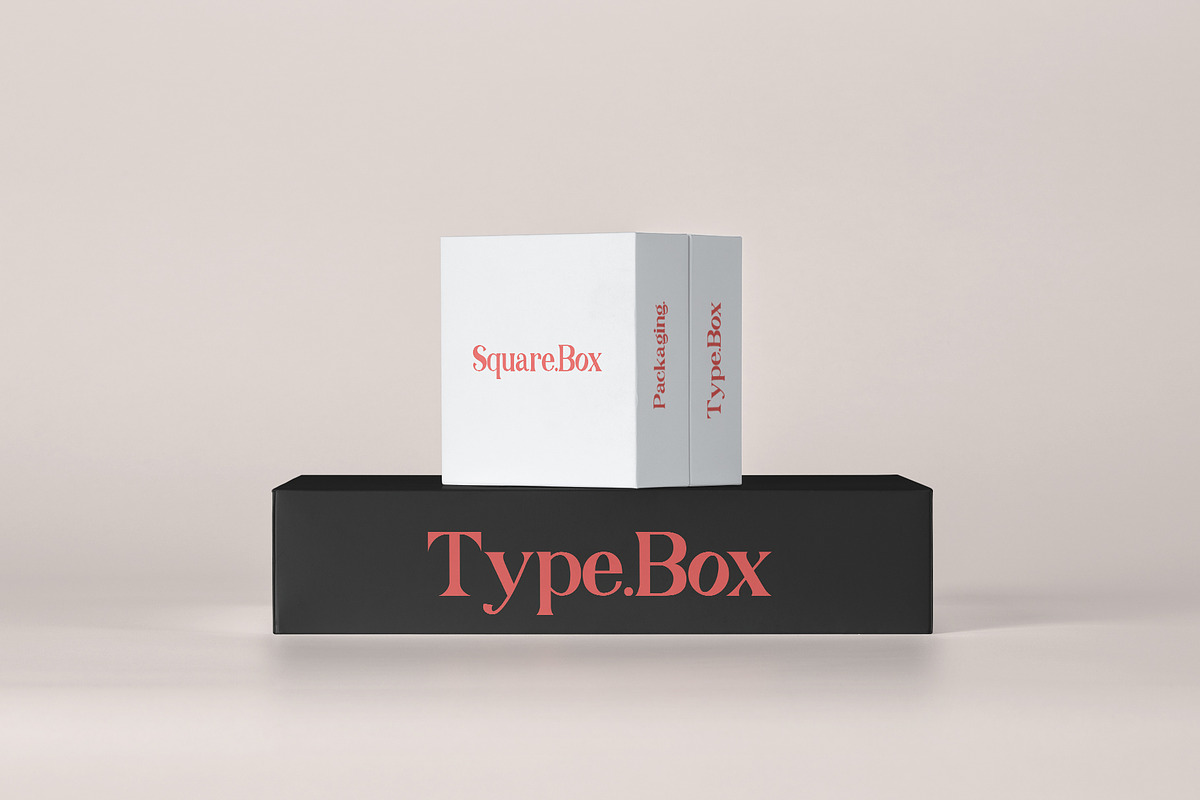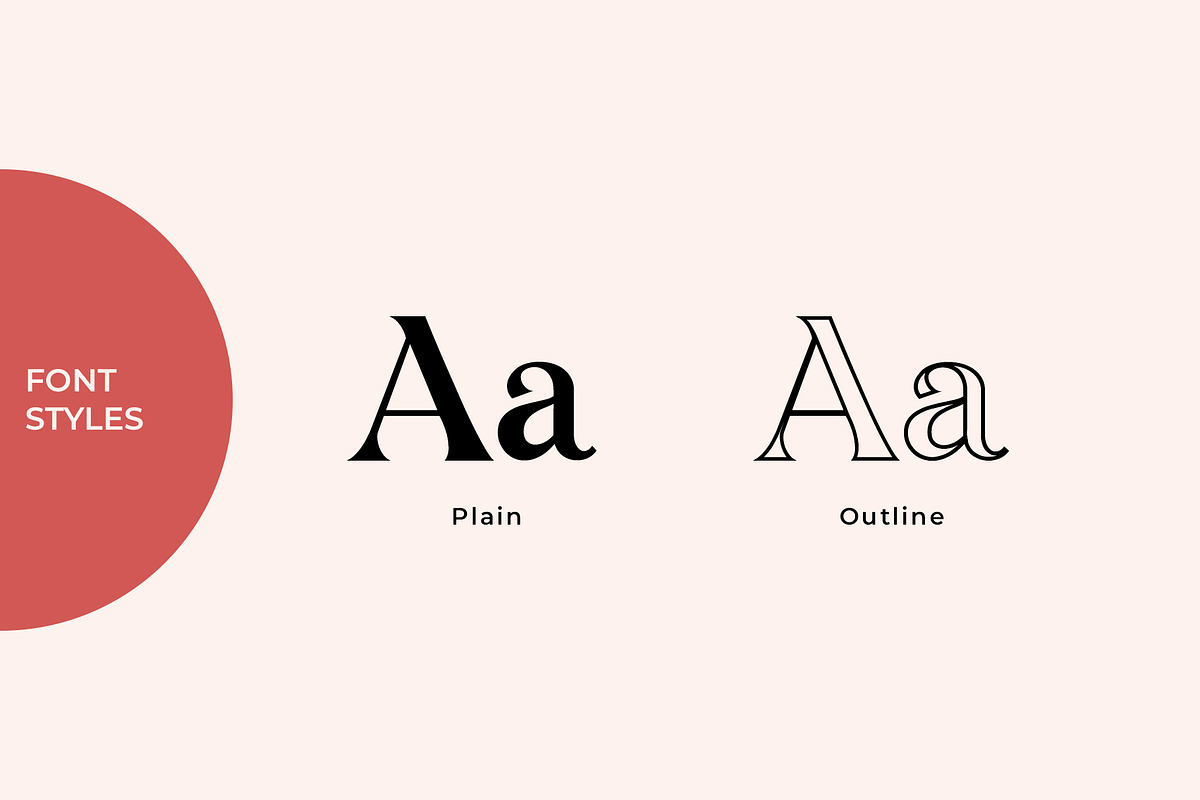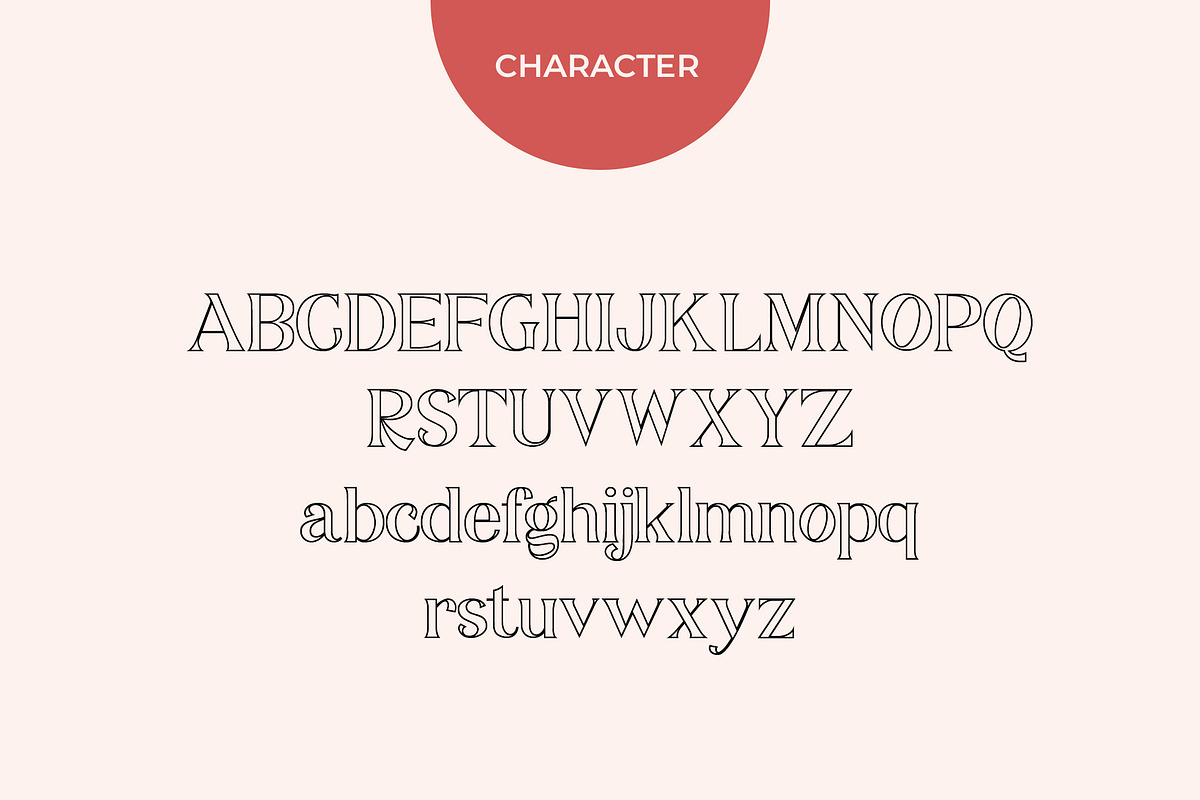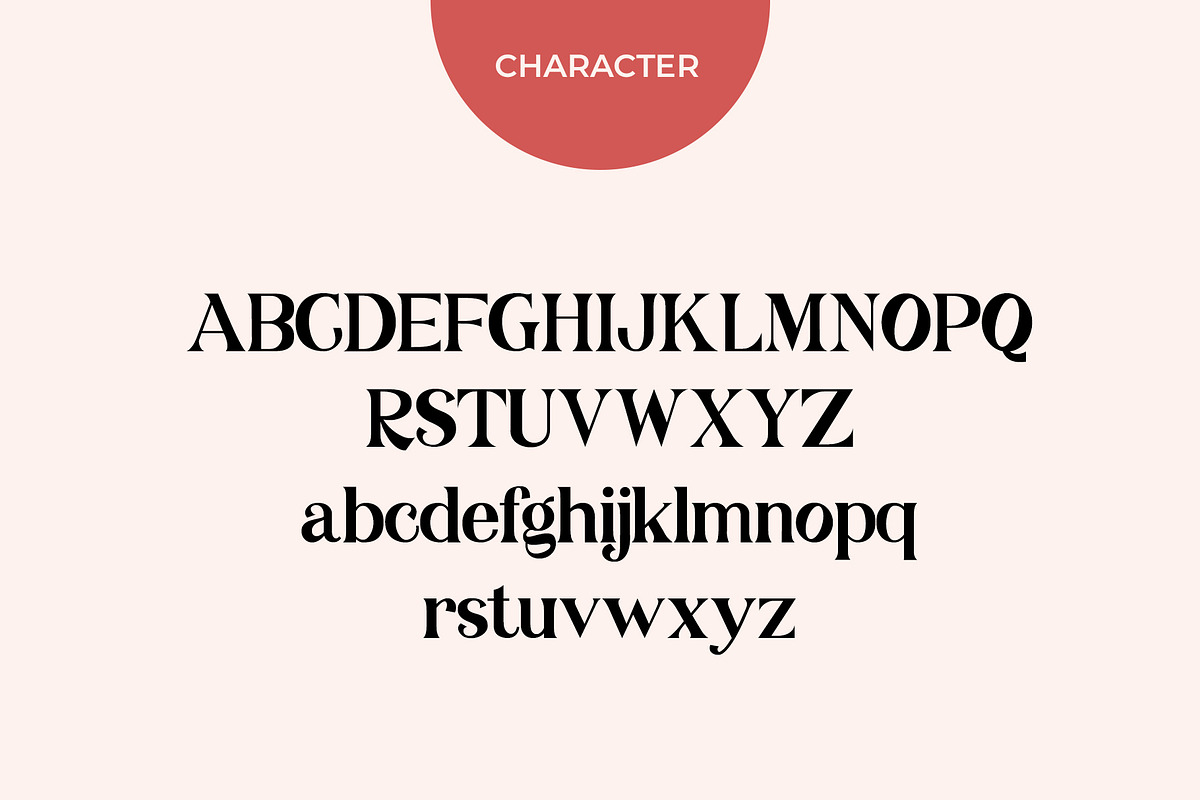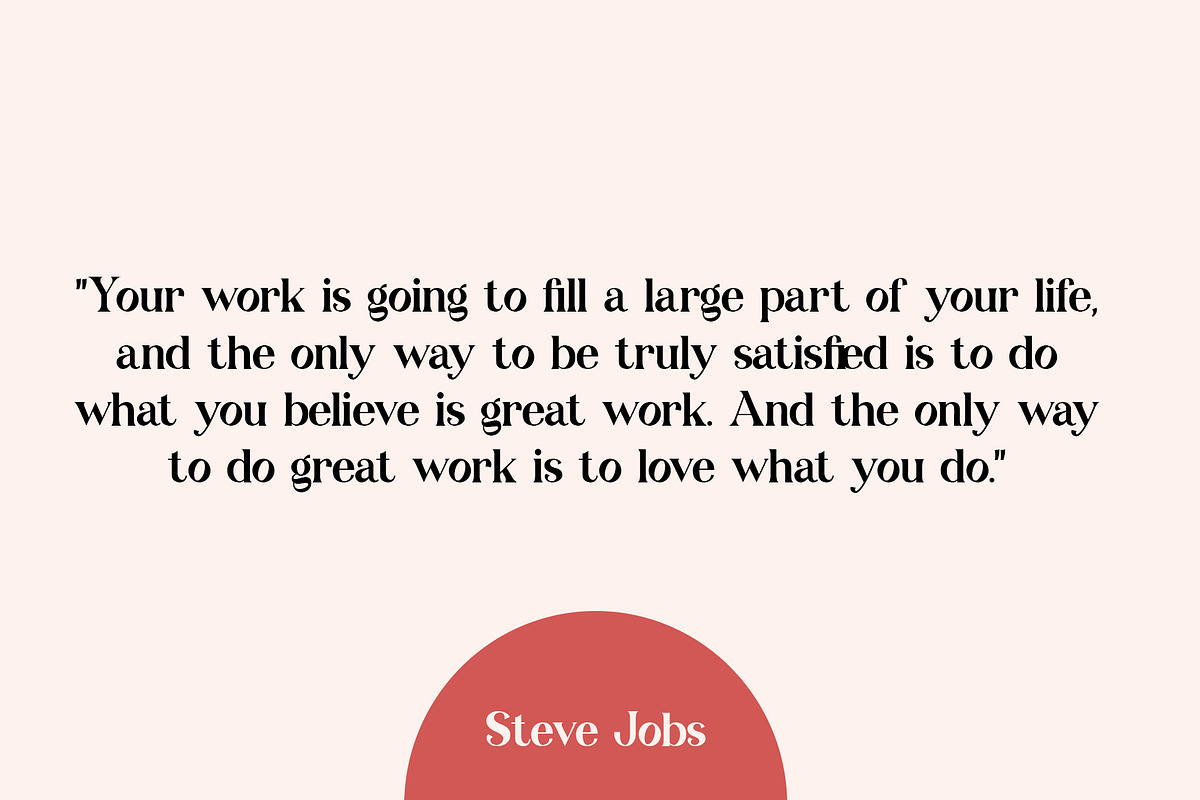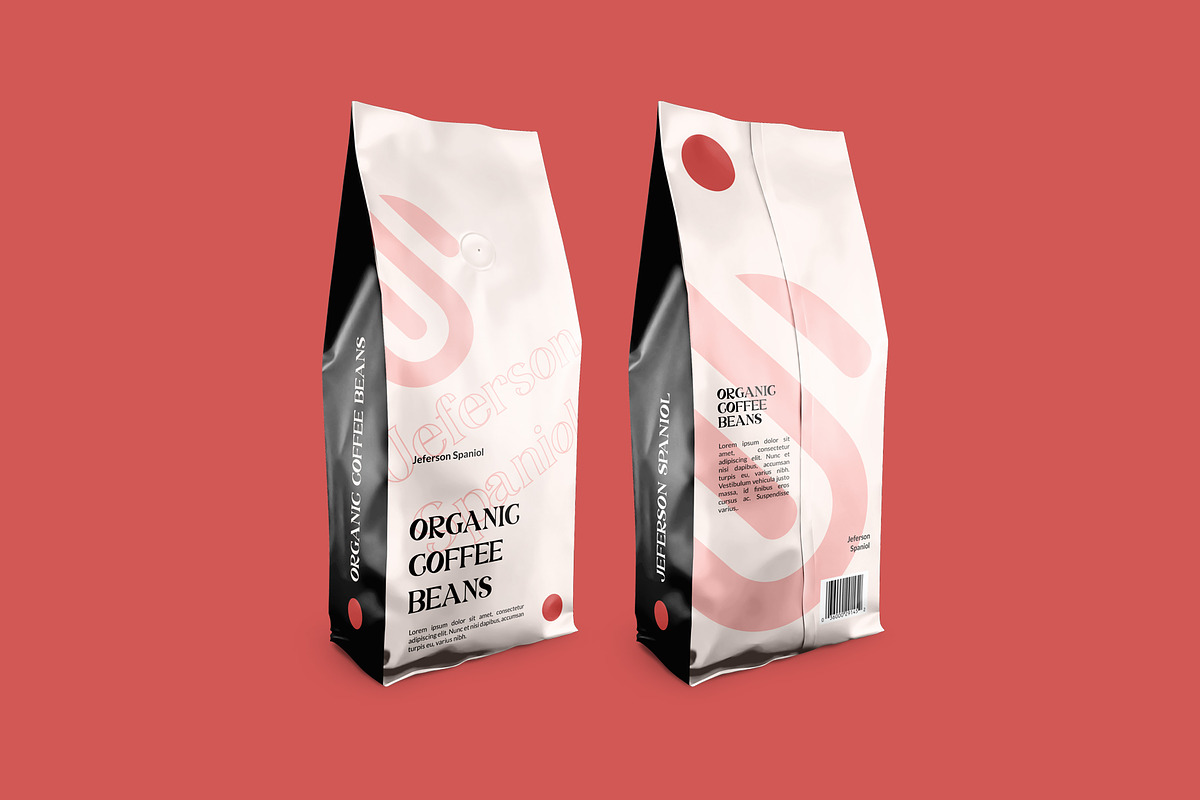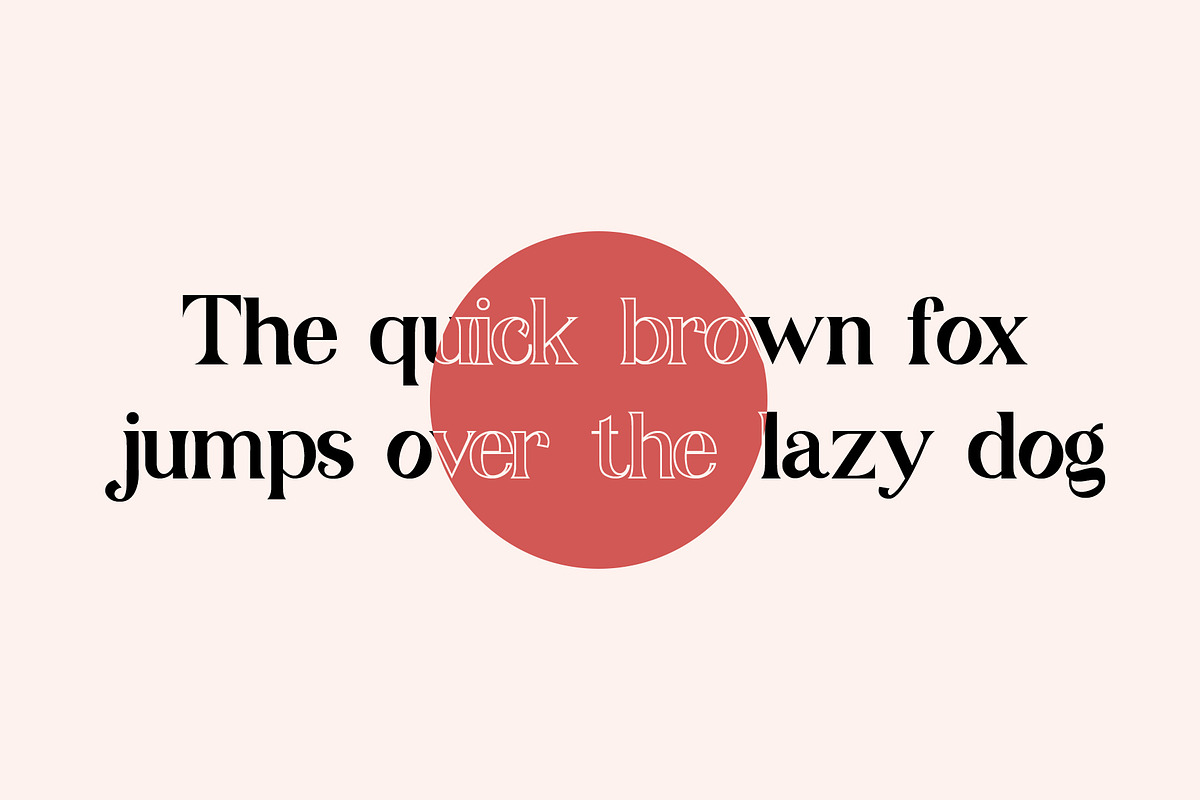
Swampcity Typeface Font
Swampcity is a unique serif typeface, this font consists of 2 styles, plain and outline. This font can also be combined with other fonts like sans serif, script and handwritten. This font is suitable for graphic design needs such as: logo design, branding, UI / UX, posters, etc.
multi language support
2 Font : Plain & Outline